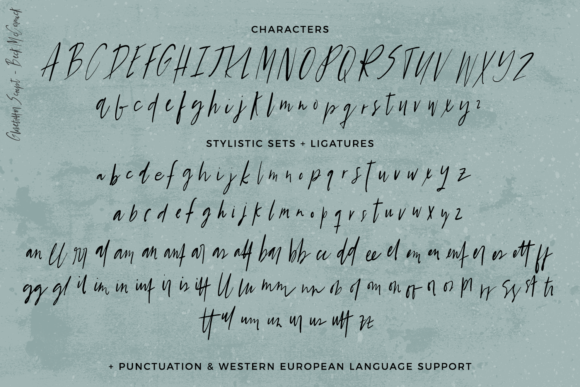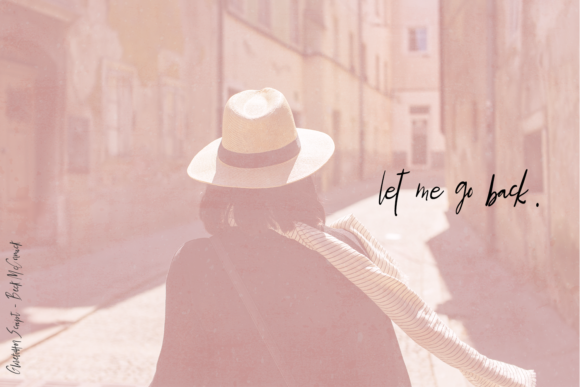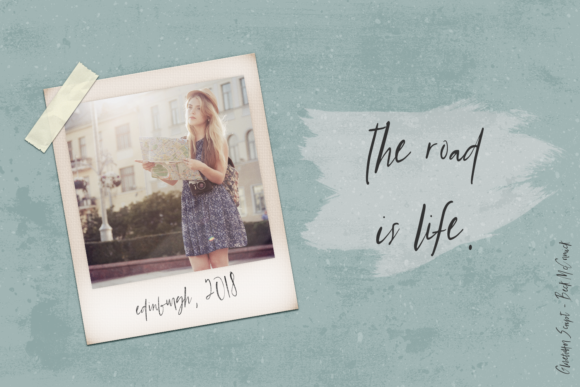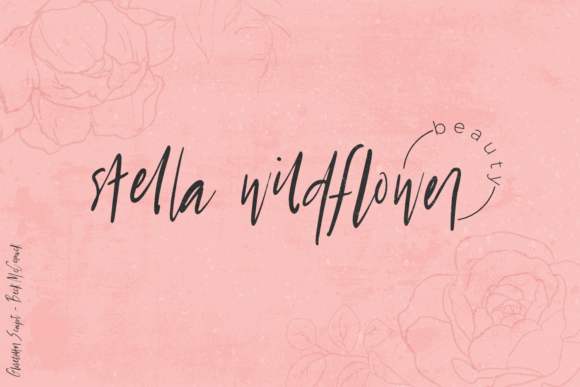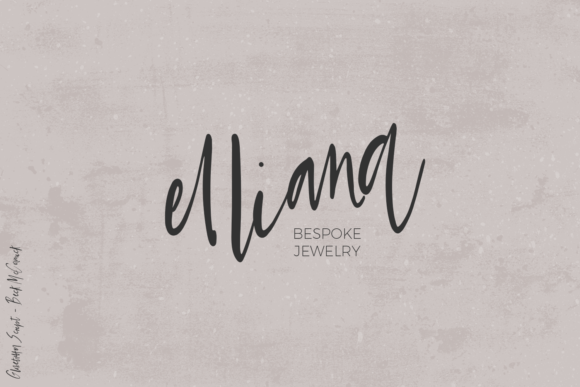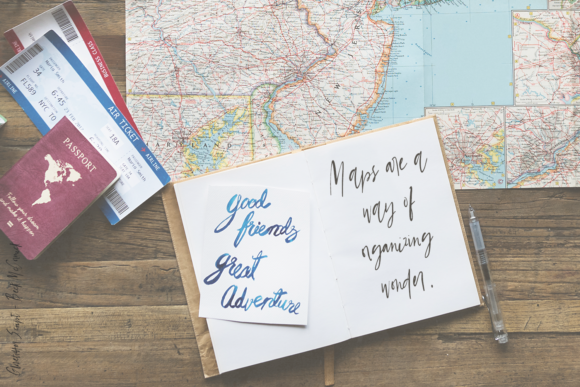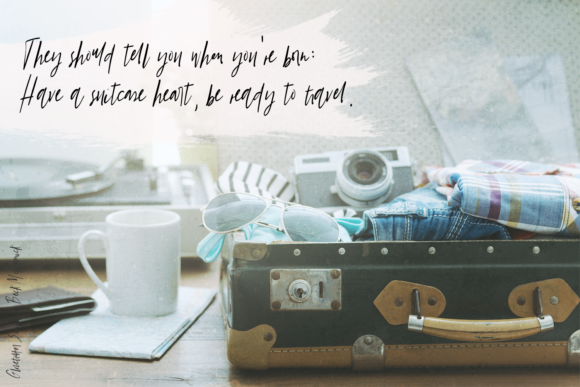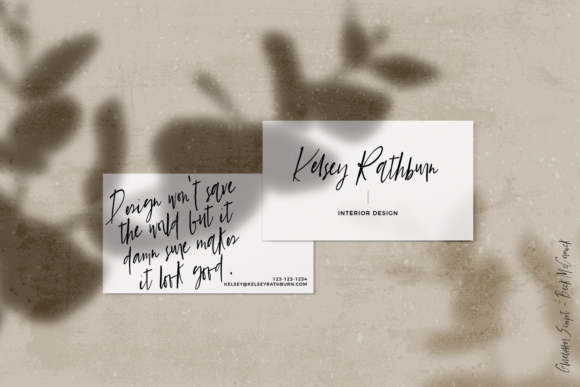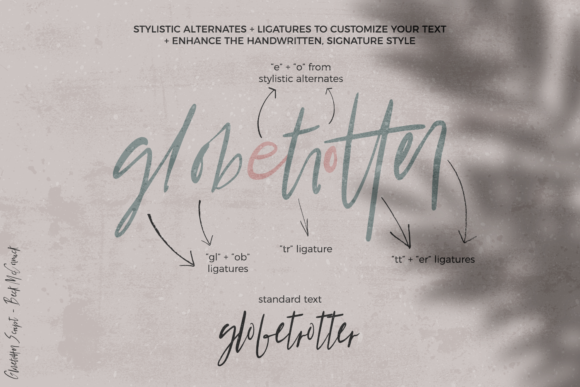
Globetrotter Font
Reminiscent of notes in a traveler’s notebook, Globetrotter creates a unique and authentic feeling and can be used for a big variety of design projects.